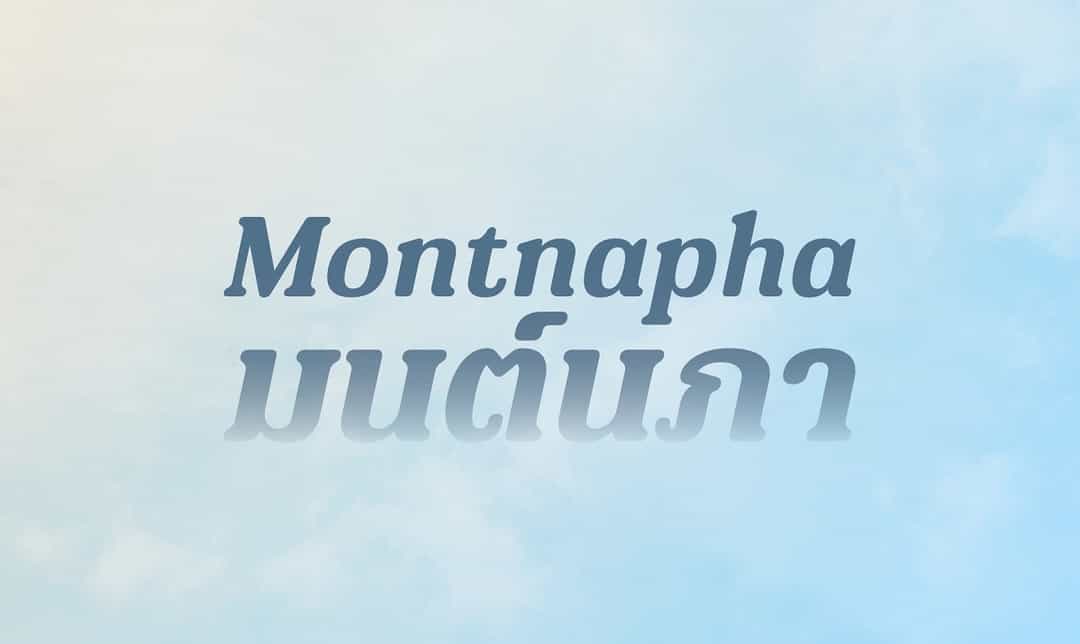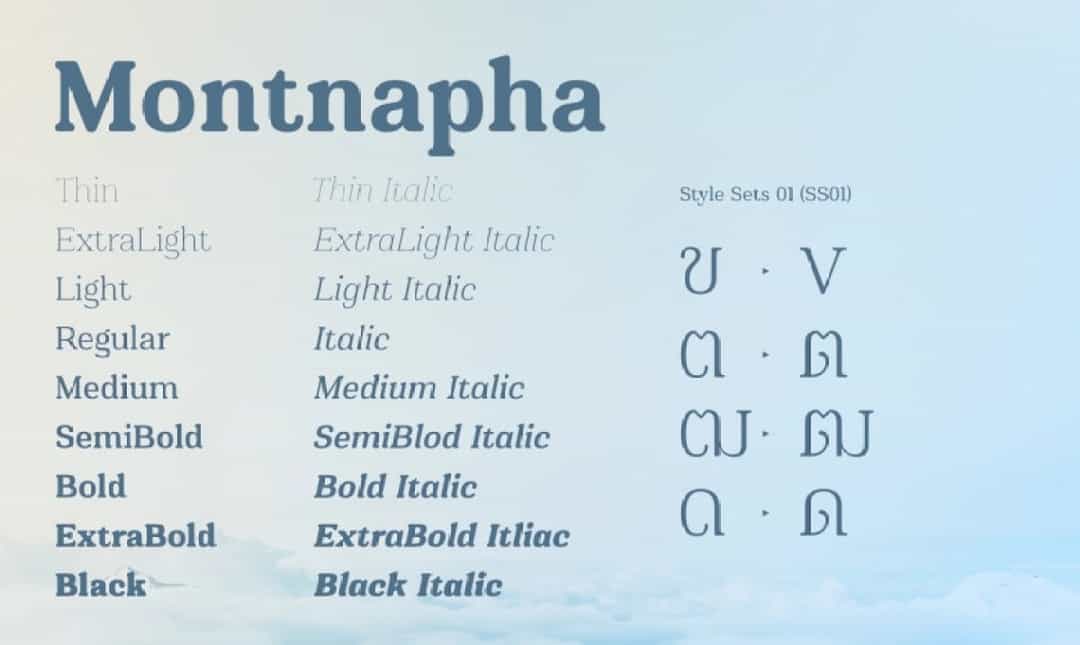
Montnapha can be described as an elegant serif typeface influenced by Cooper Black while still remaining modernist in appearance. Cooper Black originally had humanist styling but has since been enhanced by multiple variations to its design.